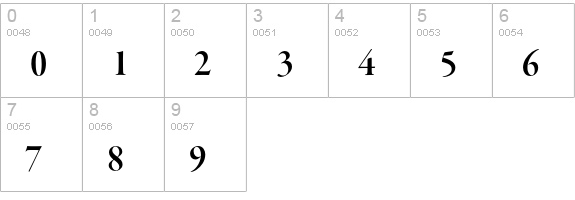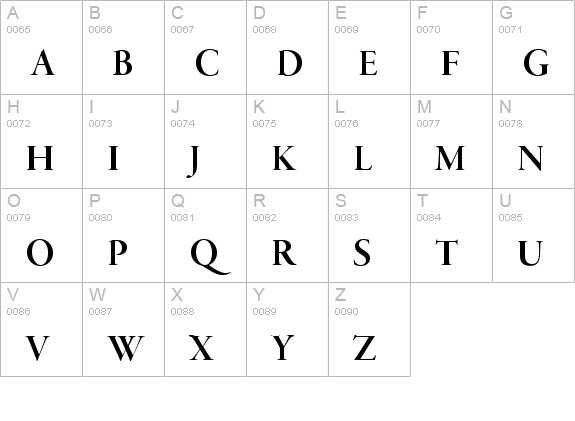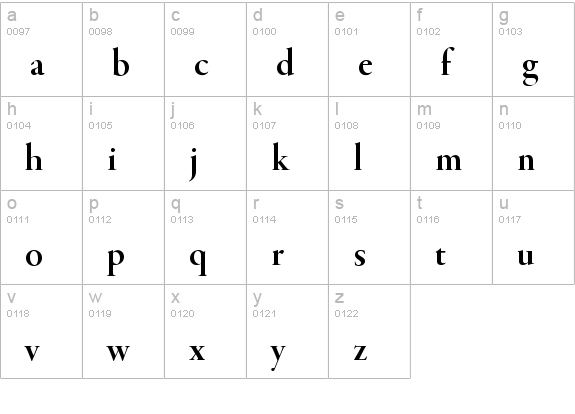
Garamond Premier Pro Semibold Display Font Details
Garamond Premier Pro Semibold Display is a sub-bold, structured variant in the Garamond typeface family \xE2\x80\x94 well suited to sub-headlines and emphasised passages.
Garamond Premier Pro Semibold Display font is a stunning and versatile typeface that exudes sophistication and elegance. With its bold yet graceful strokes, this font is perfect for adding a touch of class to any design project. The semibold weight of Garamond Premier Pro Display strikes the perfect balance between impact and readability, making it ideal for titles, headlines, and other prominent text elements. And the best part? This exquisite font is available for free download at FontsMarket.com! Whether you are a designer looking to elevate your work or a typographer in search of a new favorite typeface, Garamond Premier Pro Semibold Display font is sure to impress with its timeless appeal and modern flair. Don't miss out on the opportunity to enhance your designs with this exceptional font - download it today and let your creativity soar!